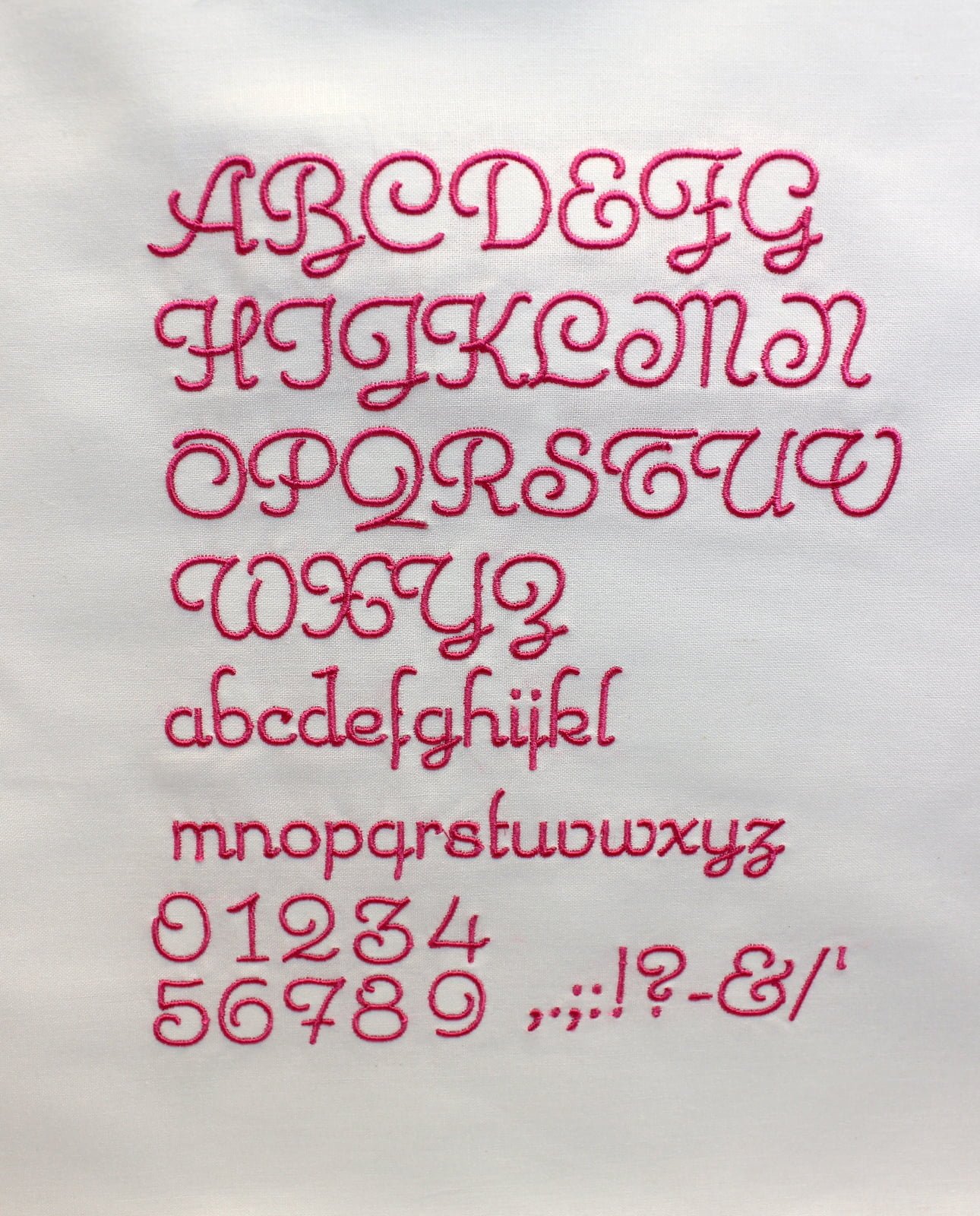
Carabelle ¾” Font
Carabelle is a beautiful, free flowing font that works very well for personalizing gifts and adding a feminine touch to your projects. This is the font we used to monogram our girly Easter bib with. On the average, lettering stands ¾” tall.